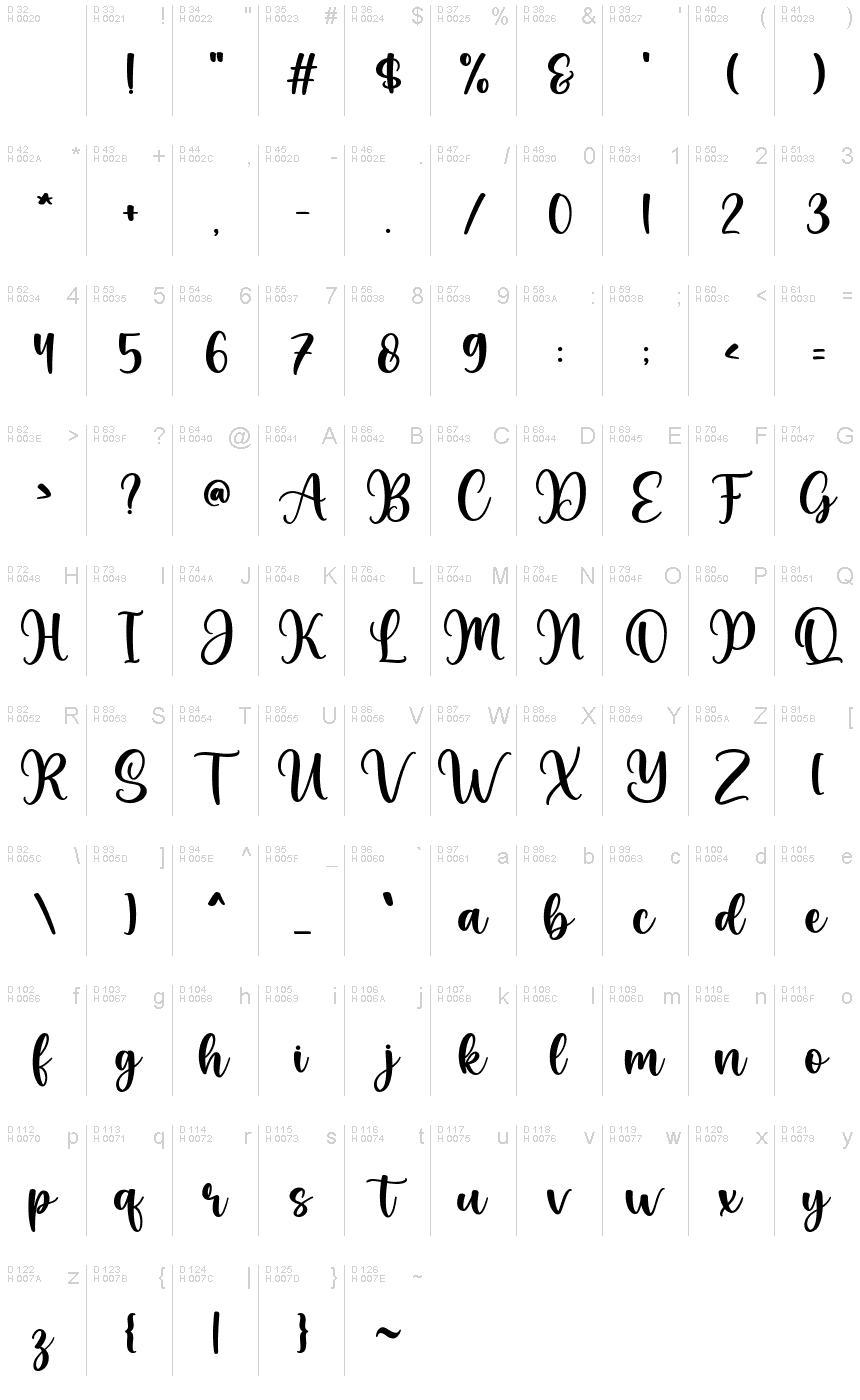
Harvest
Harvest, a creation by Graphix Line Studio, embodies the elegance of calligraphy with a modern twist. Its semi-light weight lends it an airy, graceful presence on the page, making it perfect for designs that require a touch of sophistication without being overpowering. The fluidity of Harvest's strokes suggests a natural and organic feel, reminiscent of hand-written ink letters.
This font's aesthetic appeal lies in its balanced contrasts—enough heft to ensure readability while maintaining delicacy for aesthetic pleasure. The curves are smooth and continuous, inviting the reader's eye to glide across the text effortlessly.
Ideal for branding projects, invitations, and editorial designs where a hint of personal touch is desired, Harvest offers versatility in its use. It bridges the gap between traditional calligraphy and contemporary design needs—whether you're crafting an elegant logo or setting the tone for an upcoming event with bespoke stationery.
With Harvest as your typographic tool, your creative projects can harvest the beauty of artisanal penmanship combined with modern clarity.